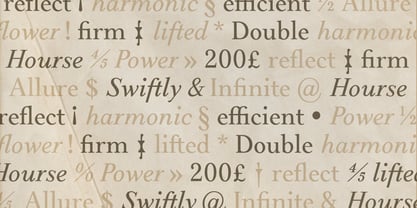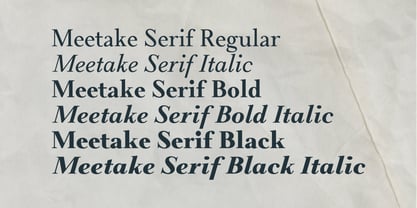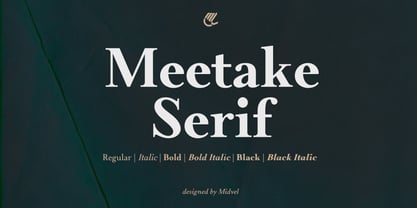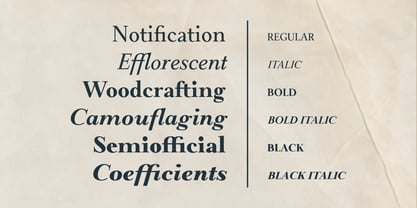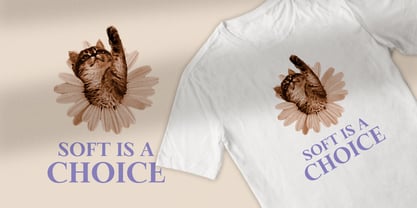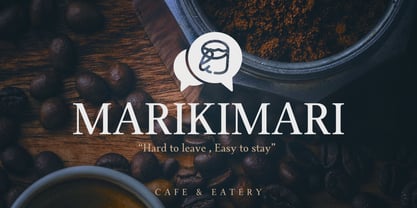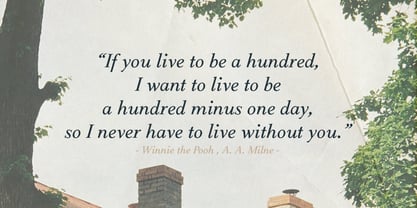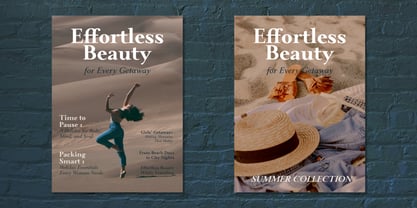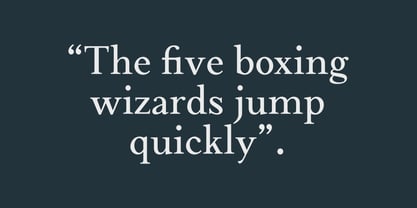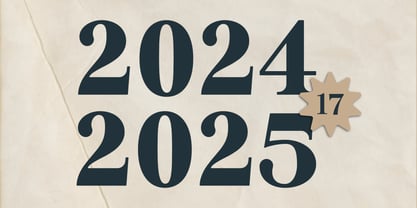
Meetake Serif
von Midvel
Die Schriftfamilie Meetake Serif wurde von Ahmad Ja'far Shadiq entworfen und von Midvel veröffentlicht. Meetake Serif enthält 6 Stile und Familienpaketoptionen. Mehr über diese Familie
Meetake Serif is a typeface designed in a classic style. This Typeface is characterized by medium letter contrast and a relatively low x-height. The clear distinction between lowercase and uppercase letters helps create a neat and professional visual structure. This gives it a tall, slim, and elegant appearance. Meetake was created as a serif that does not feel heavy or rigid, making it relevant for modern design needs that demand clarity, aesthetics, and a calm character. Complete Meetake is available in 3 weights and 6 styles. These variations allow designers to build a strong and consistent visual hierarchy within a single font family. This typeface is suitable for branding, logos, magazines, posters, product packaging, merchandise, and apparel.  Explore the typeface.